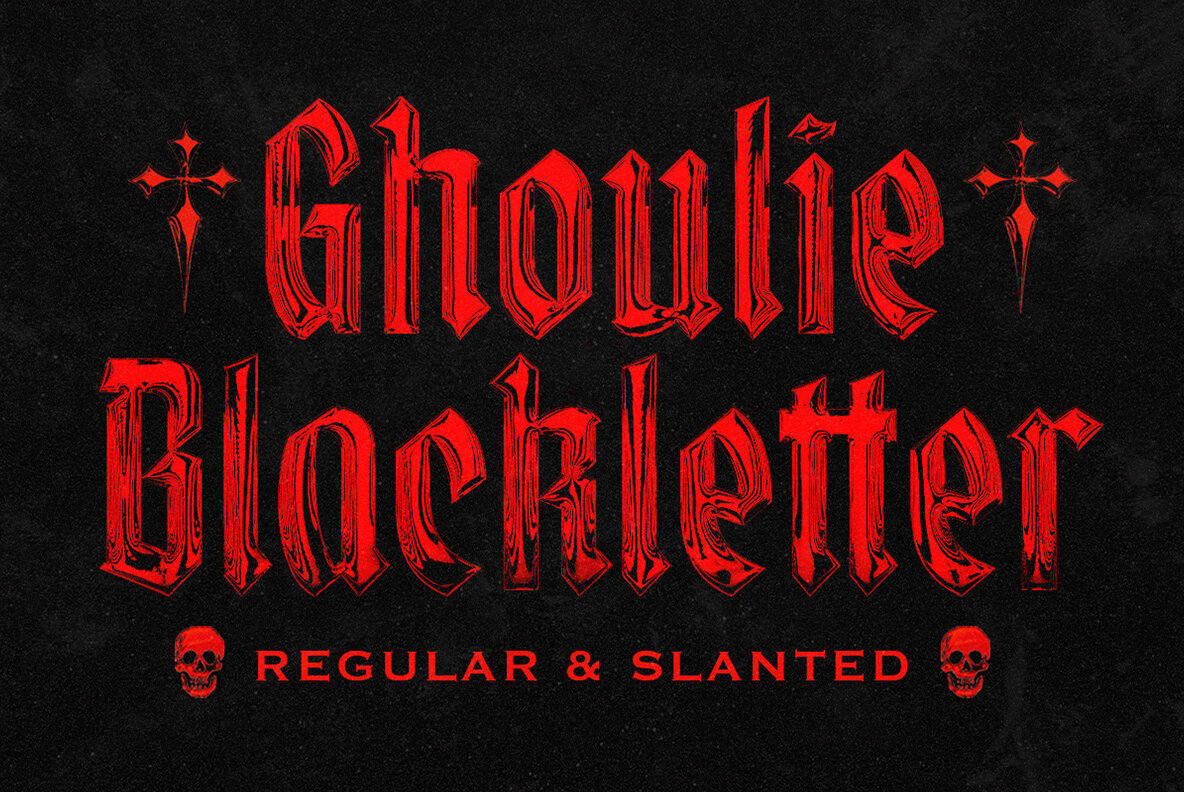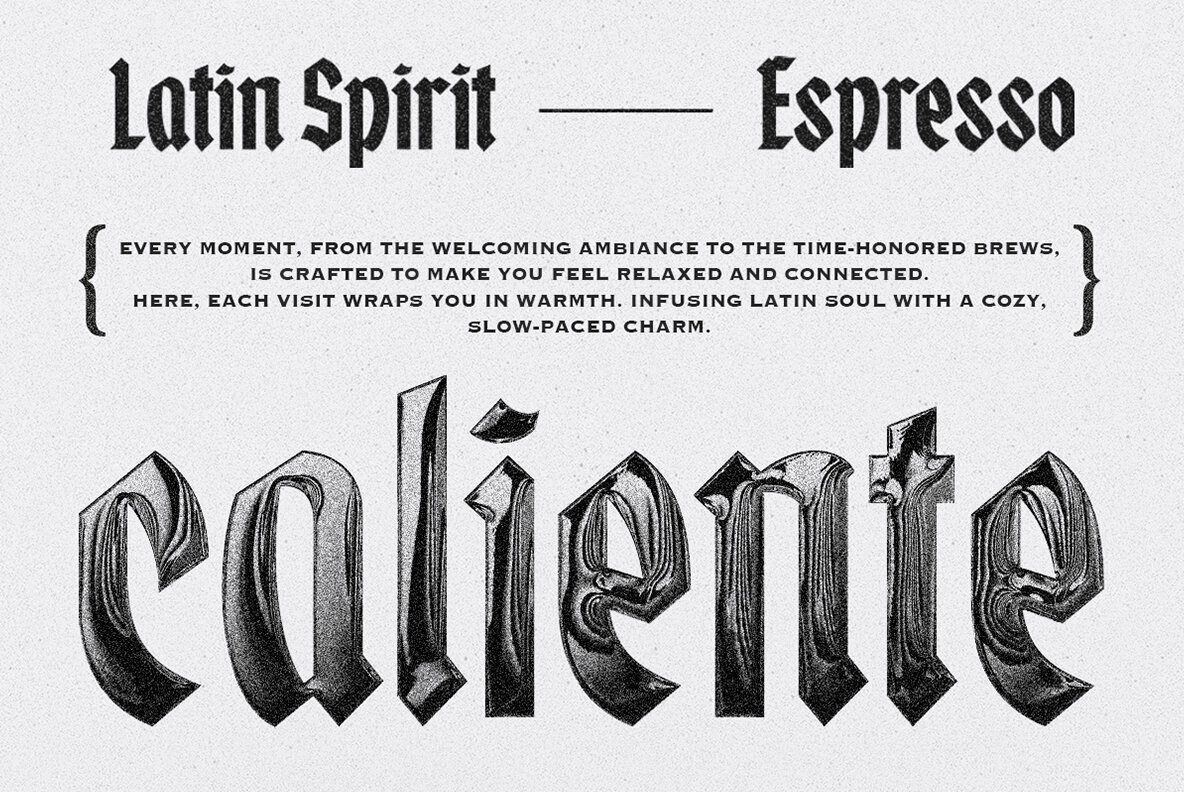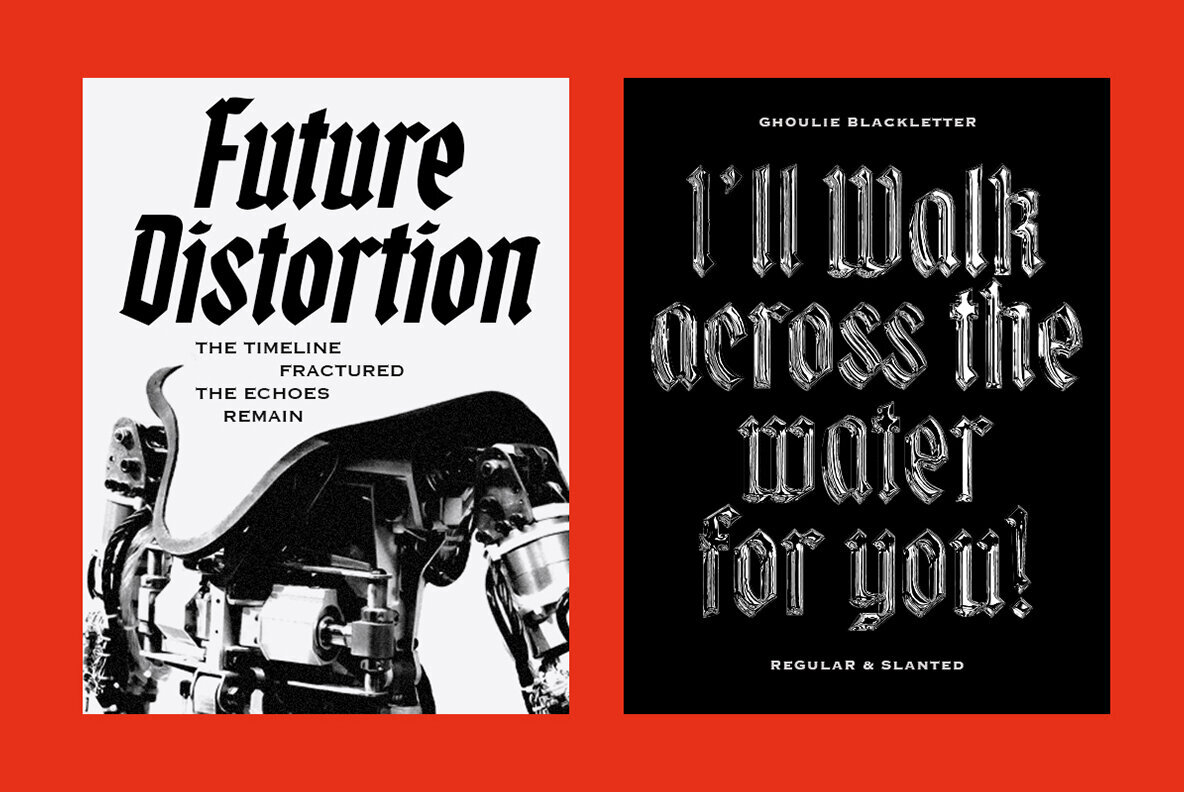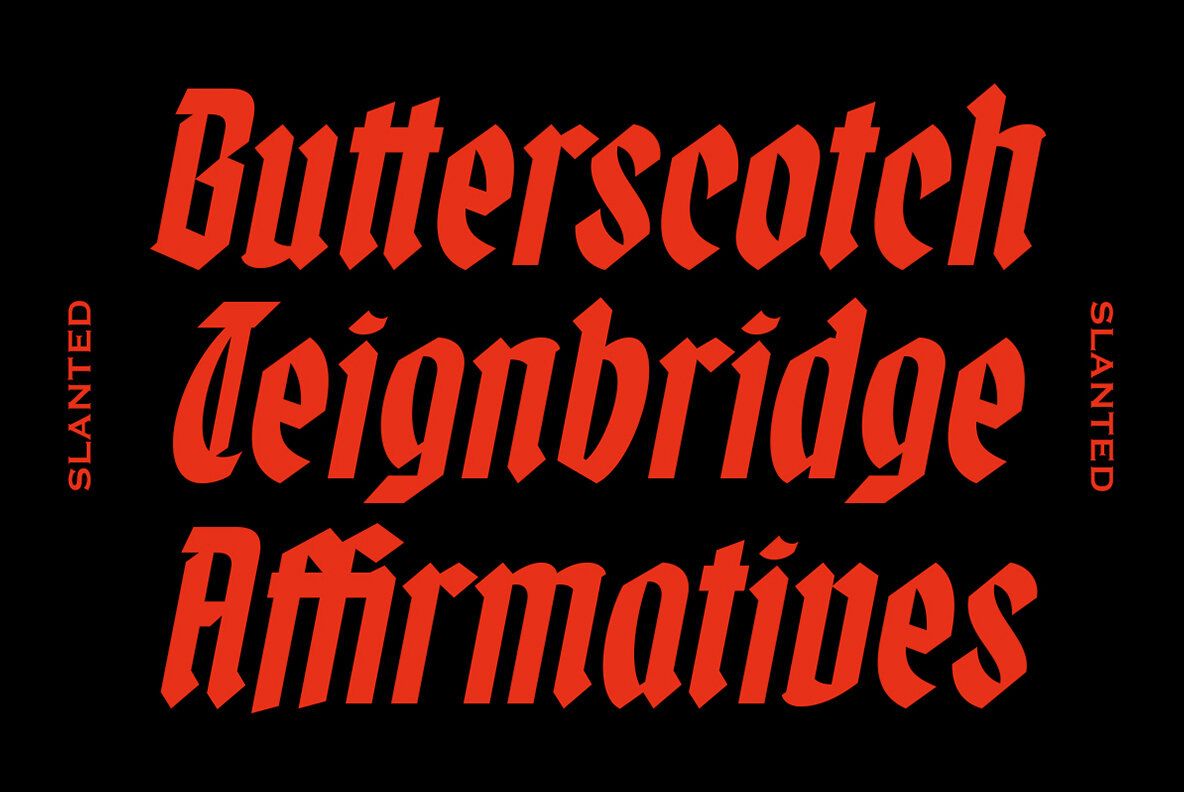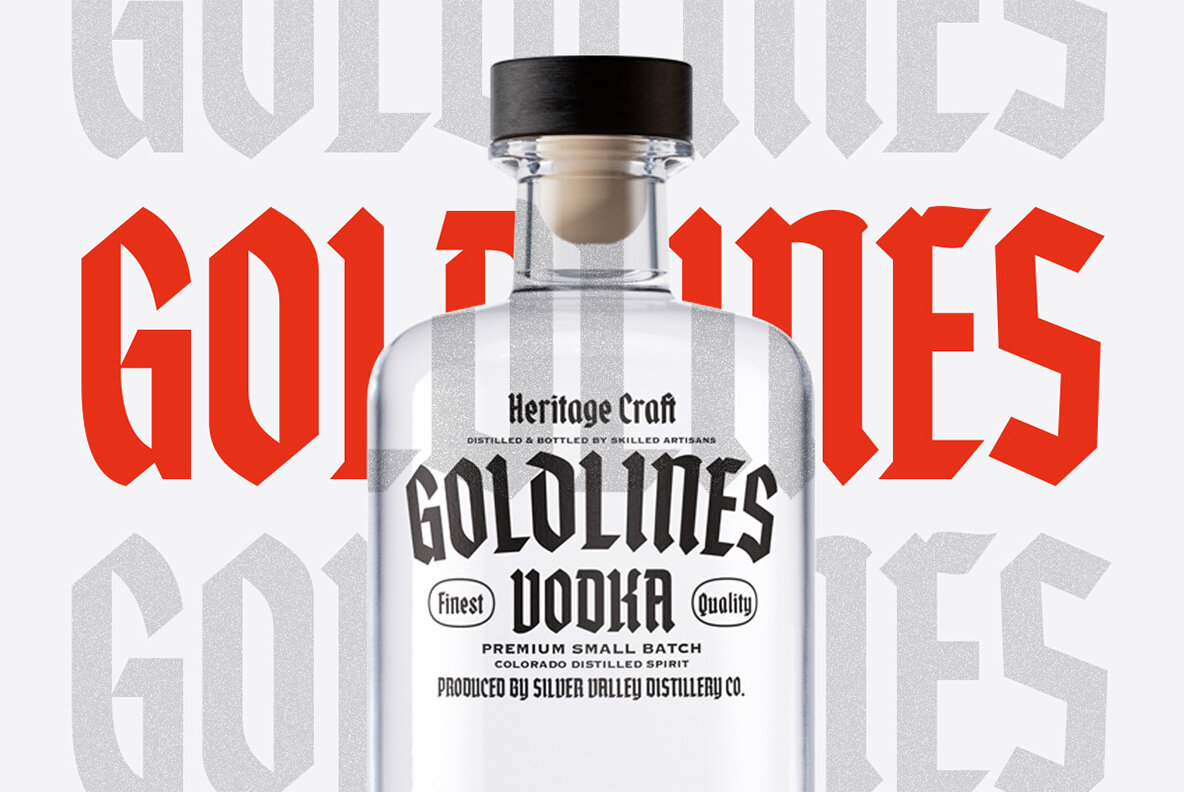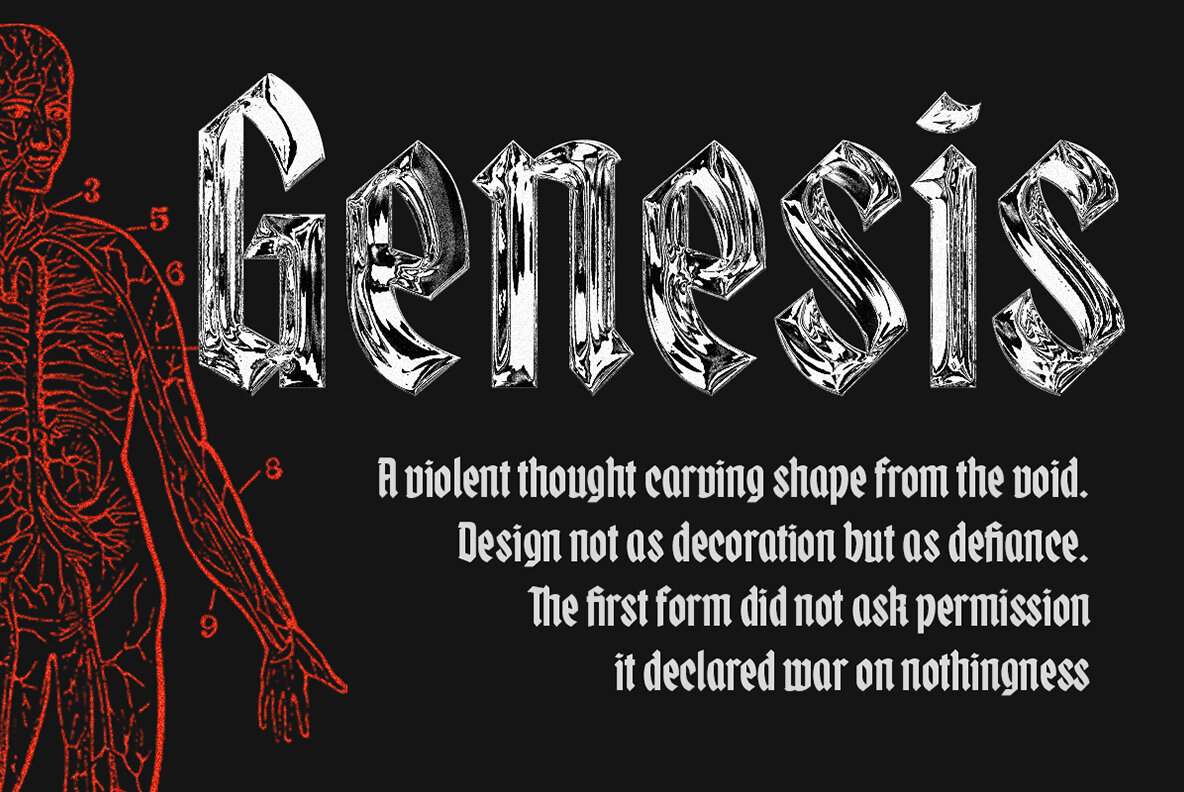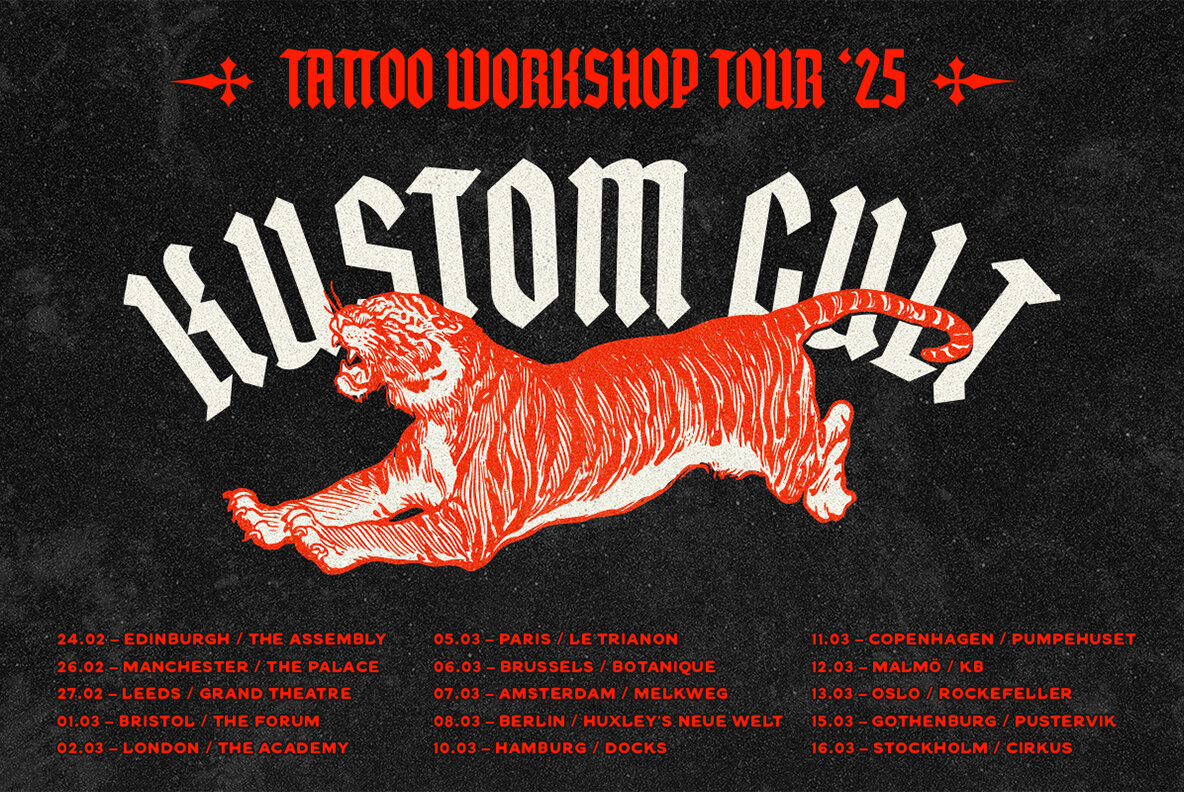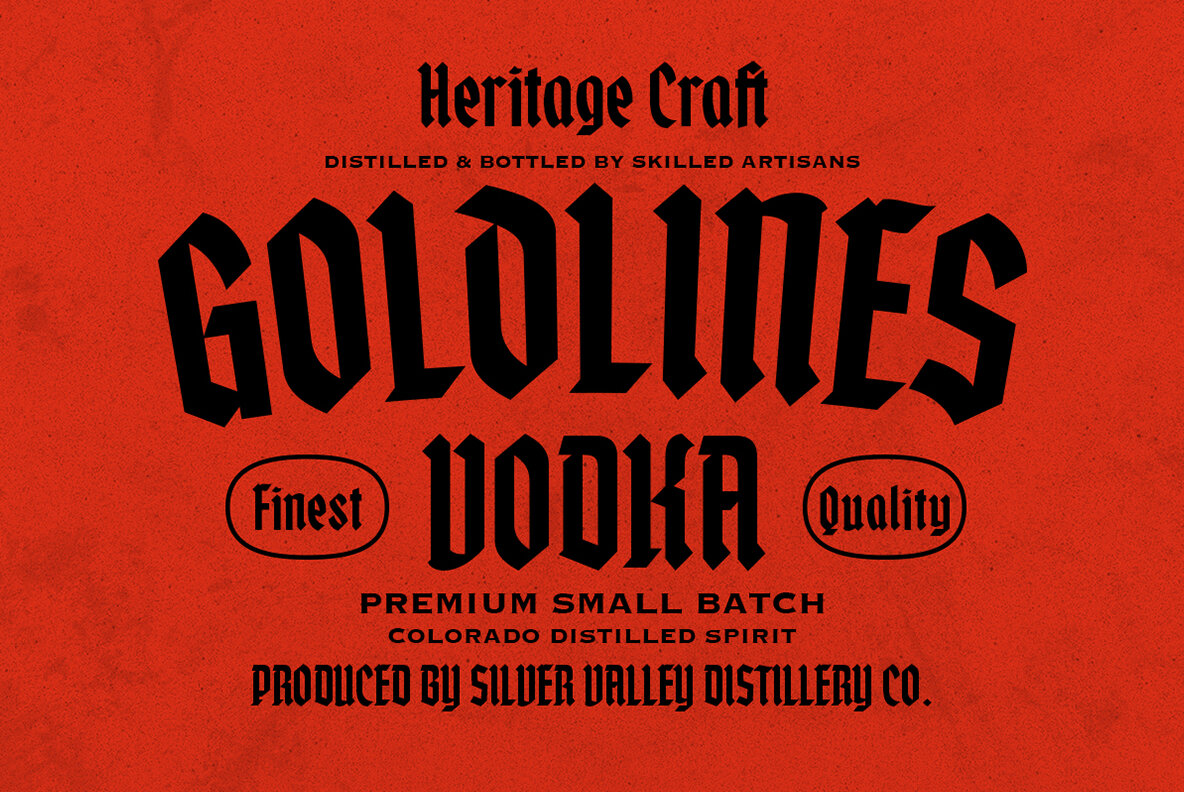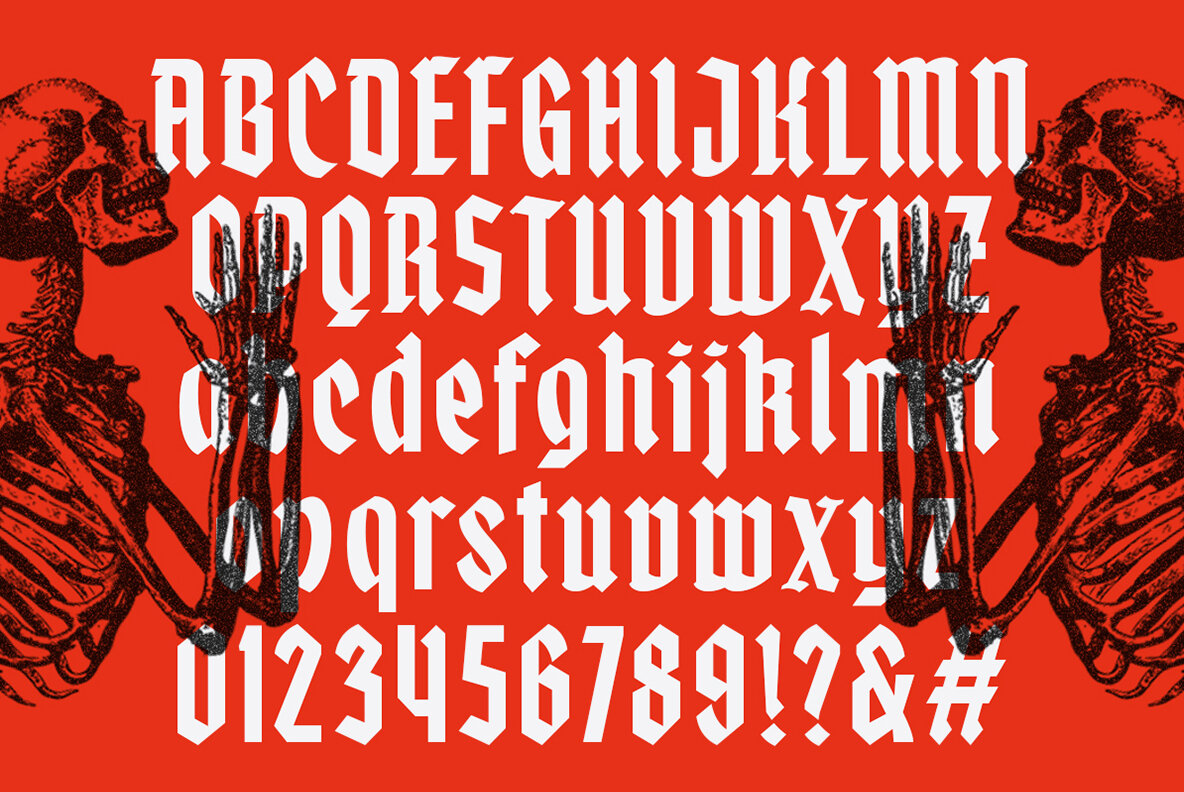
IC Ghoulie Font
Ghoulie Regular
Ghoulie Slanted
Meet IC Ghoulie, a blackletter font that infuses modern sensibility with traditional gothic charm. This typeface stands out by offering a unique balance of both vintage appeal and contemporary flair. Available in Regular and Slanted styles, IC Ghoulie provides the versatility to create bold and eye-catching designs that radiate confidence and style. Perfect for crafting distinctive and bold branding, IC Ghoulie is a designer's choice for standout visual identities. Its support for multilingual characters, along with alternate glyphs and select ligatures, ensures a broad creative palette. Whether you're emphasizing edgy elegance or crafting a timeless statement, IC Ghoulie meets the mark.IC Ghoulie: A Modern Twist on Blackletter